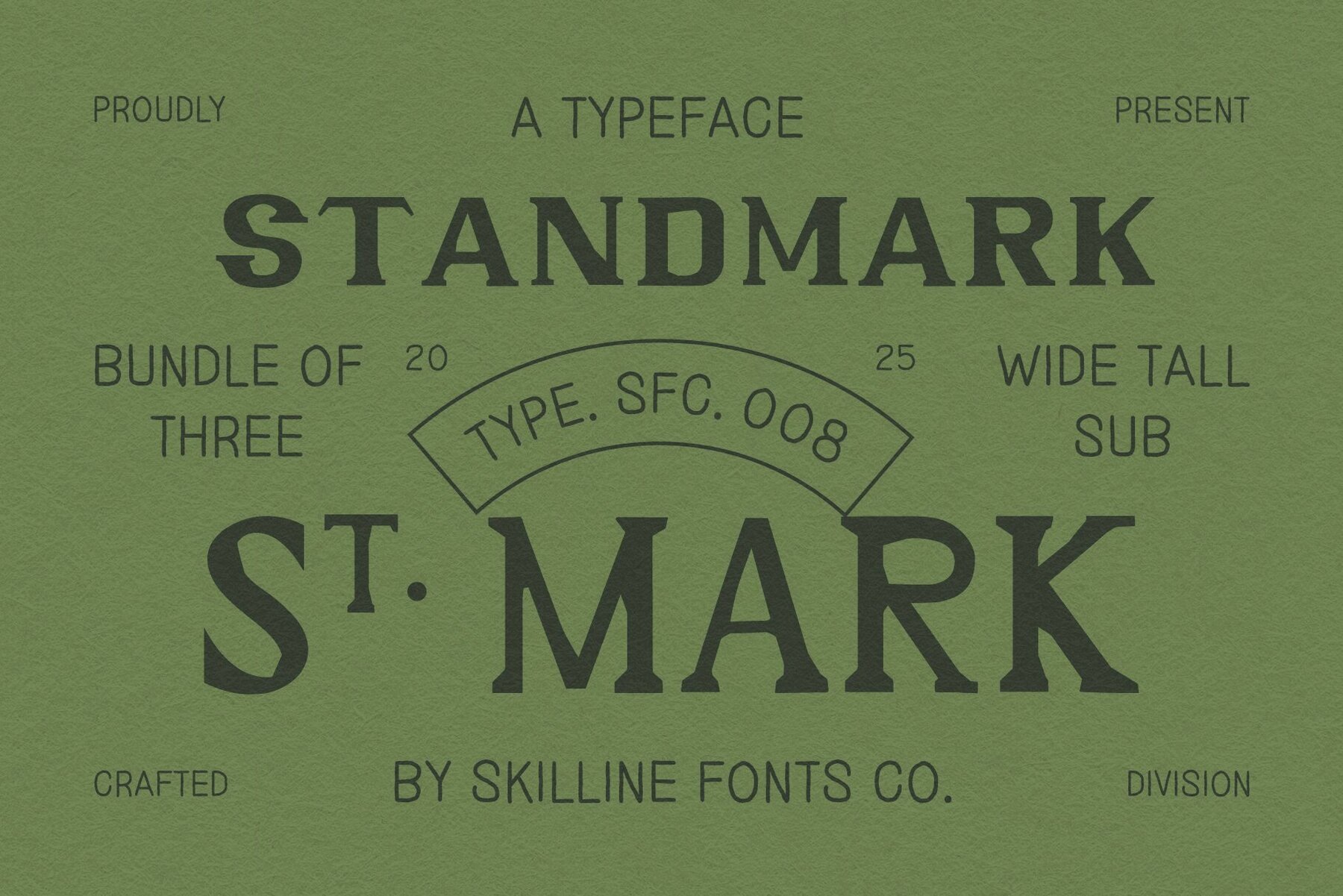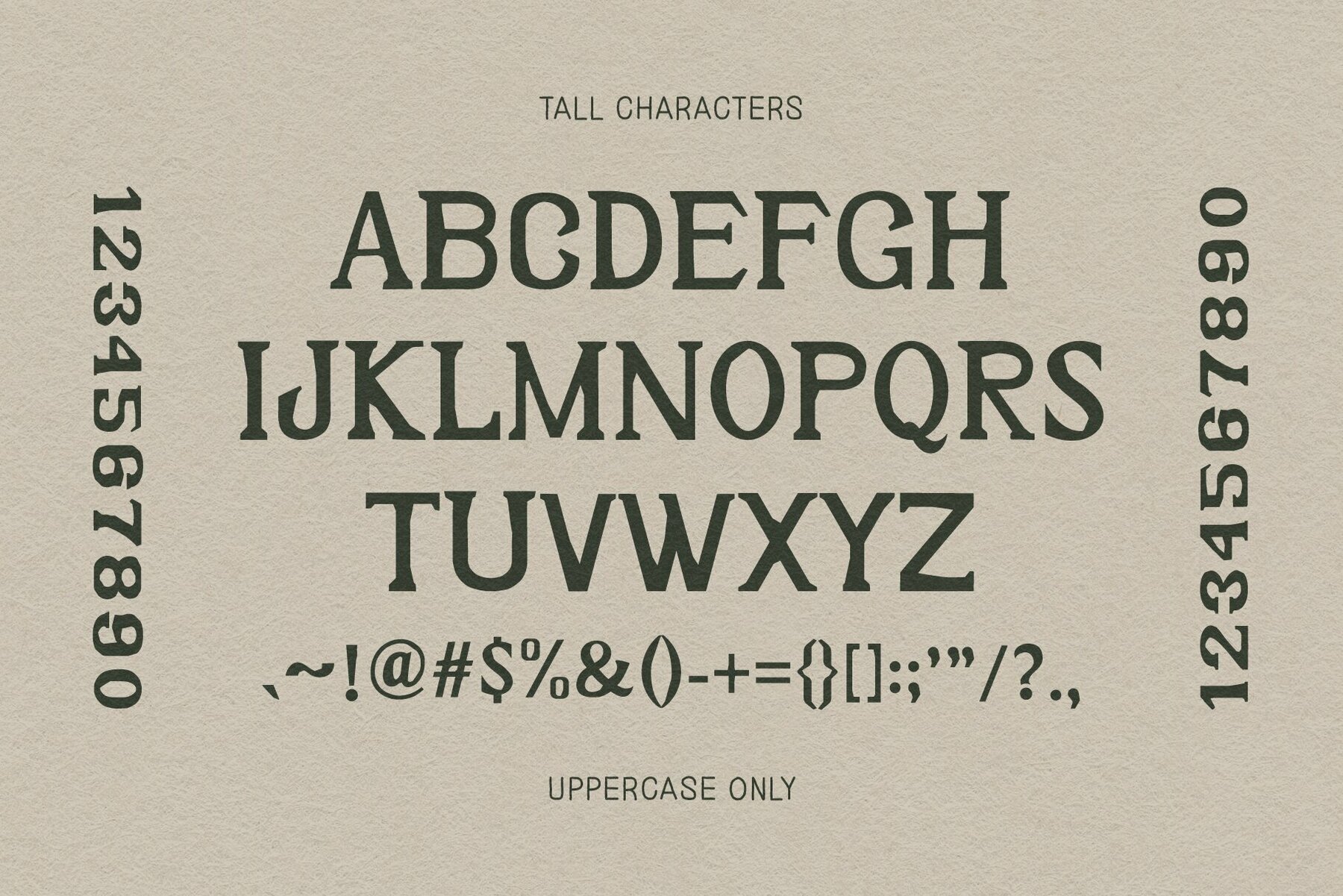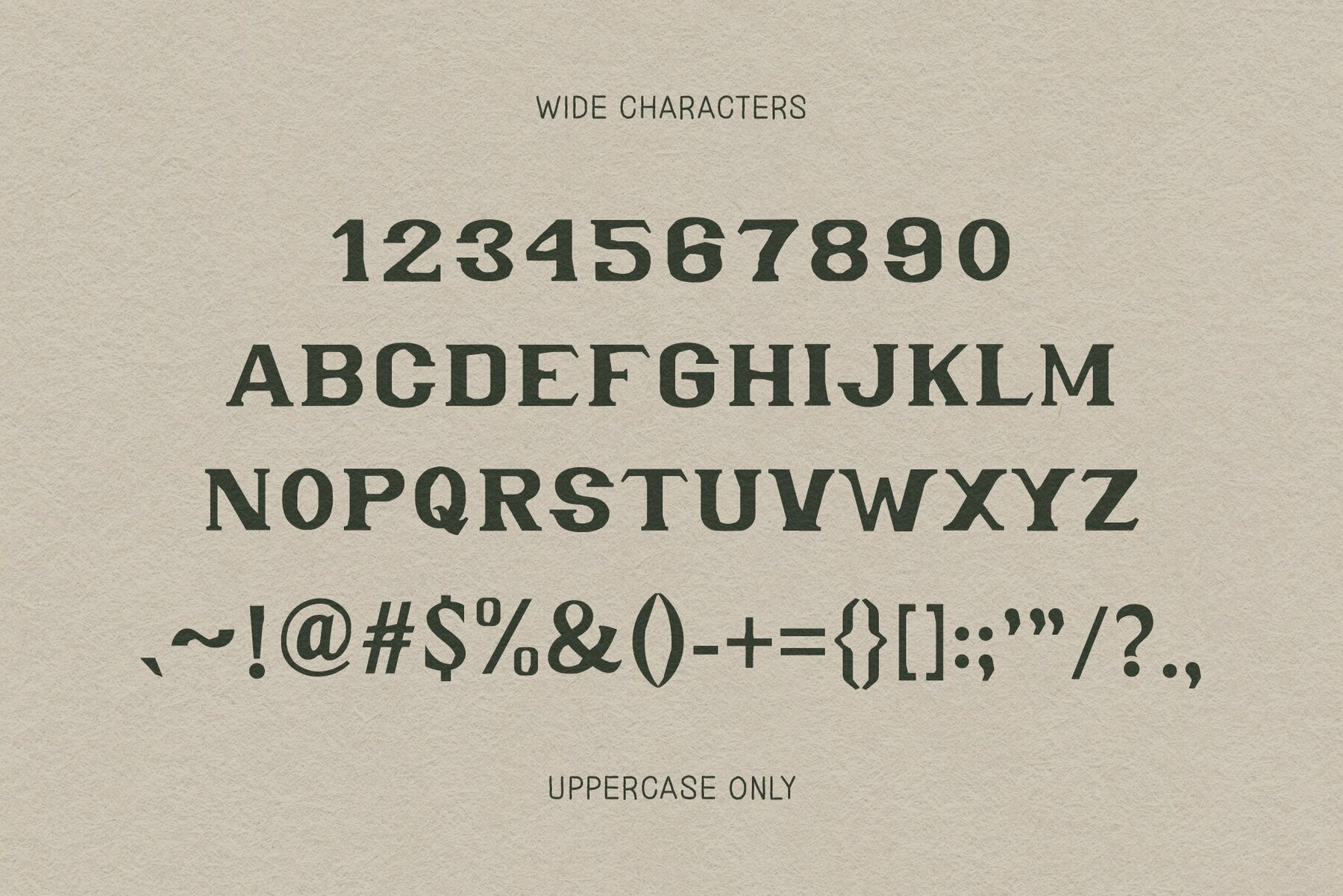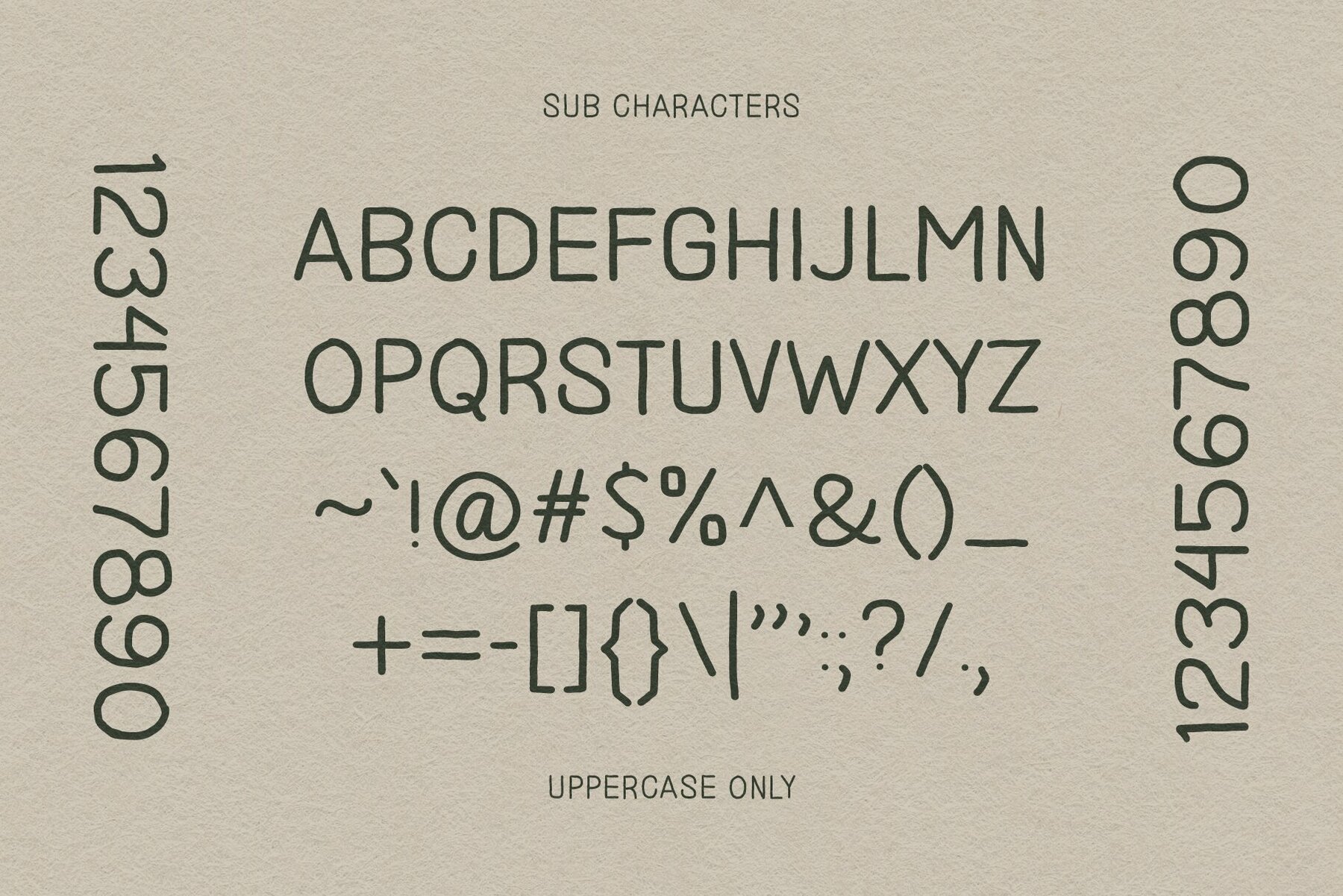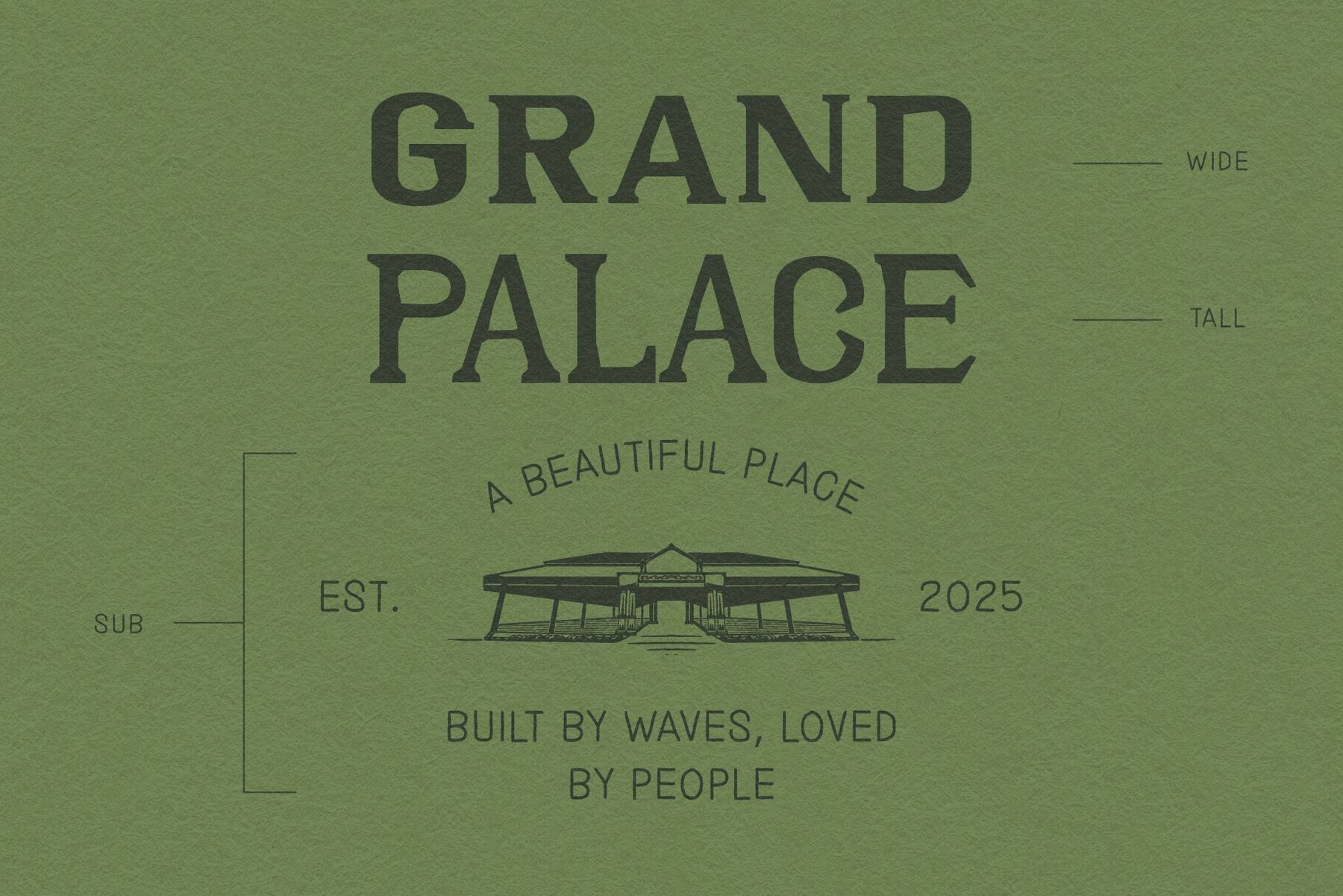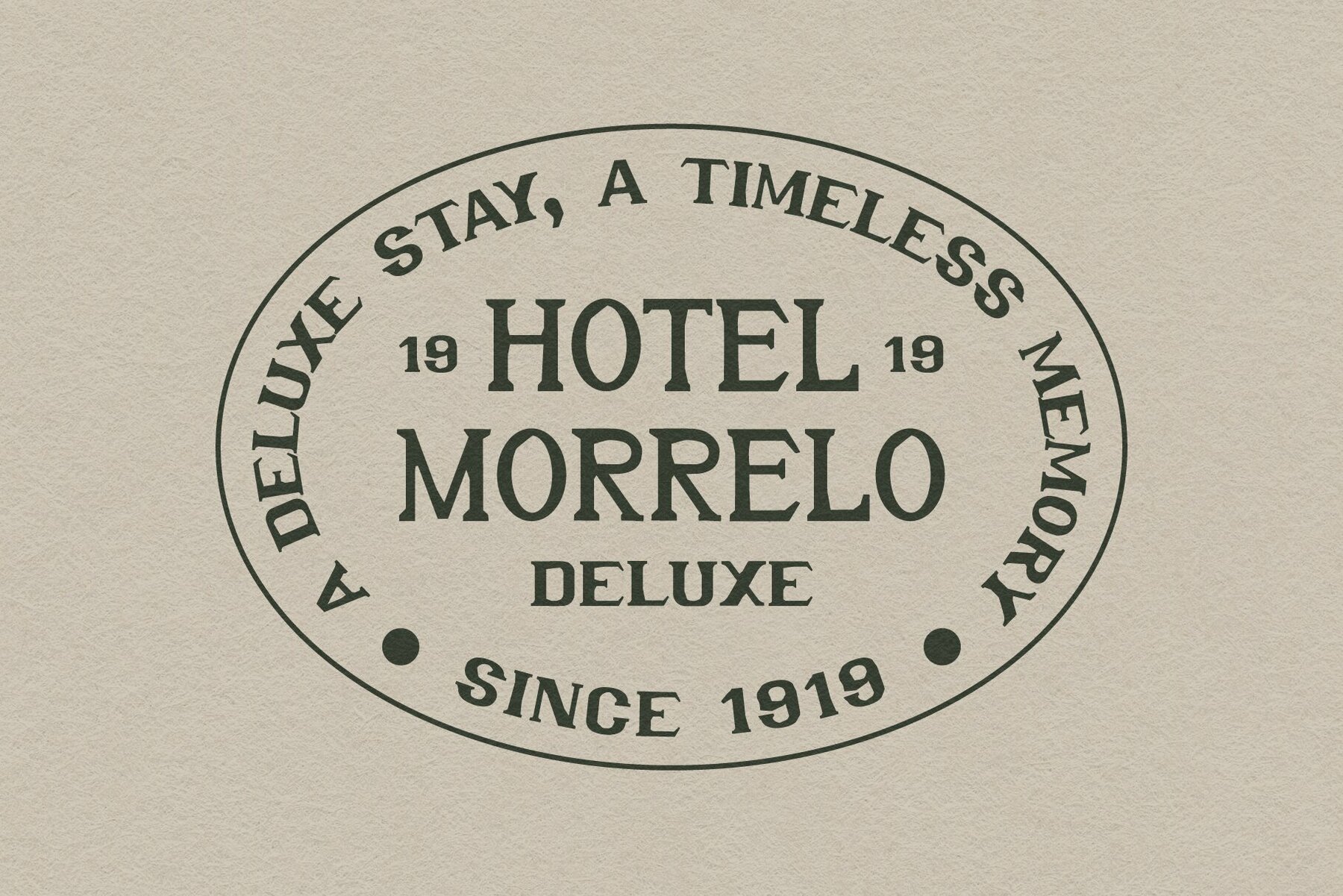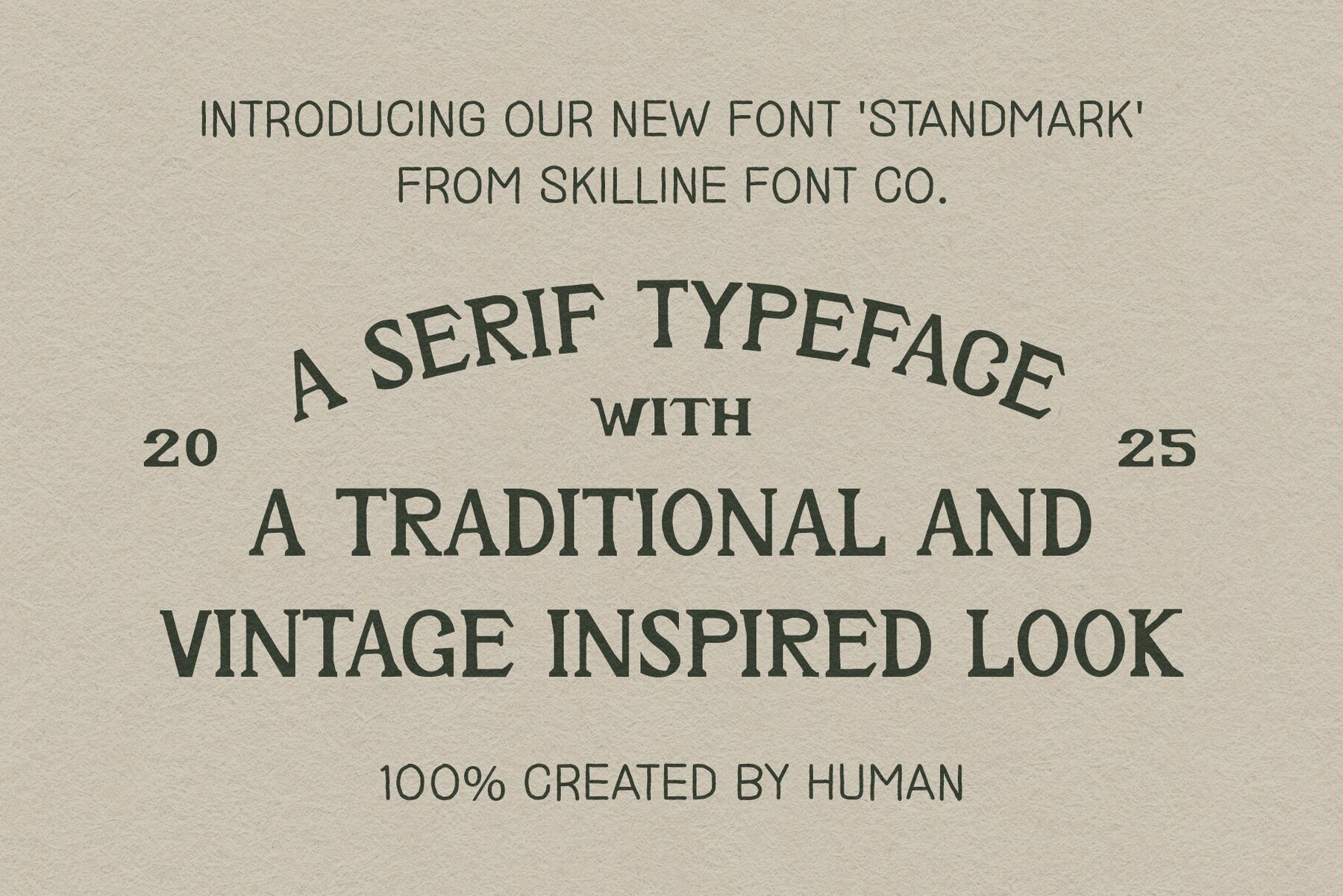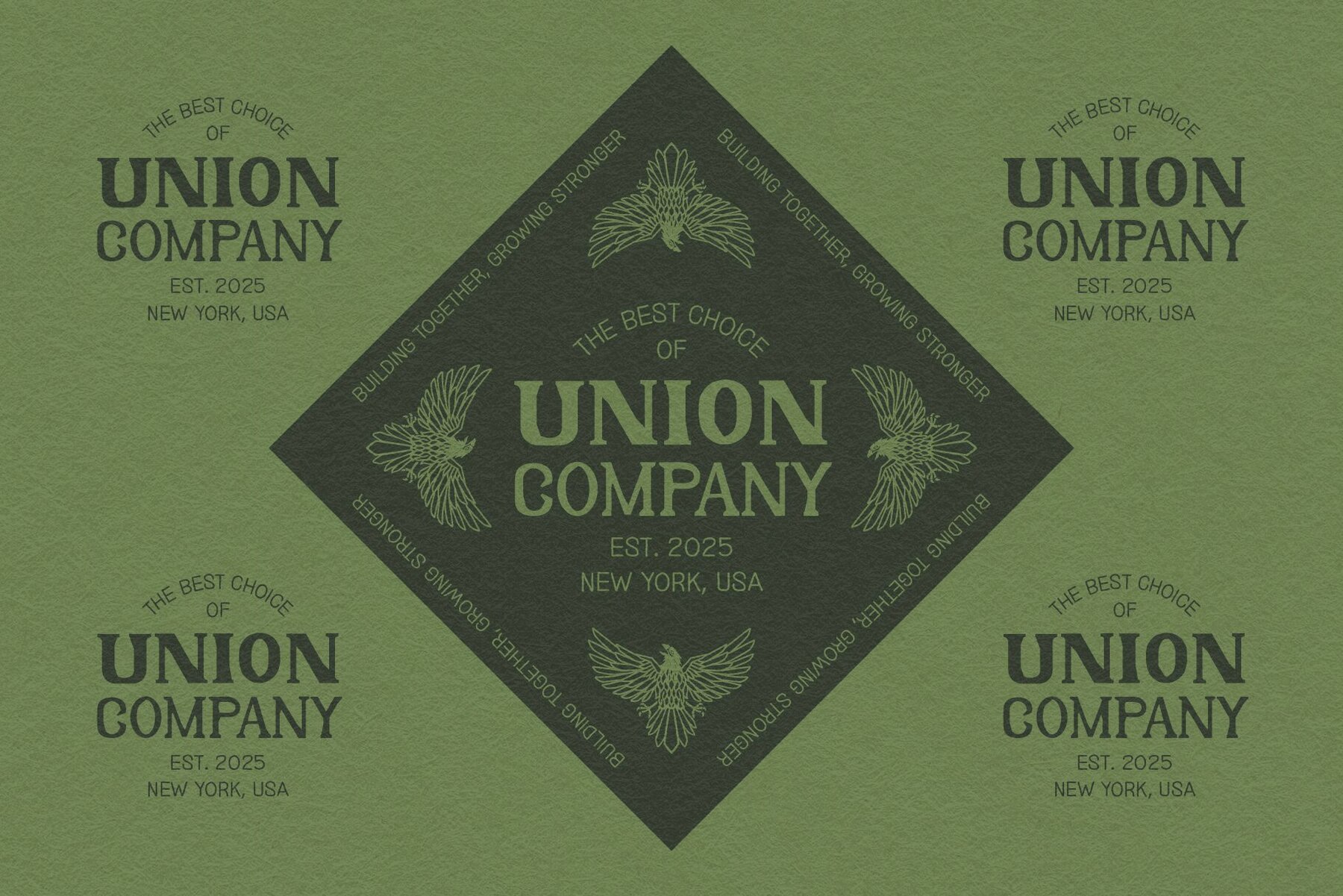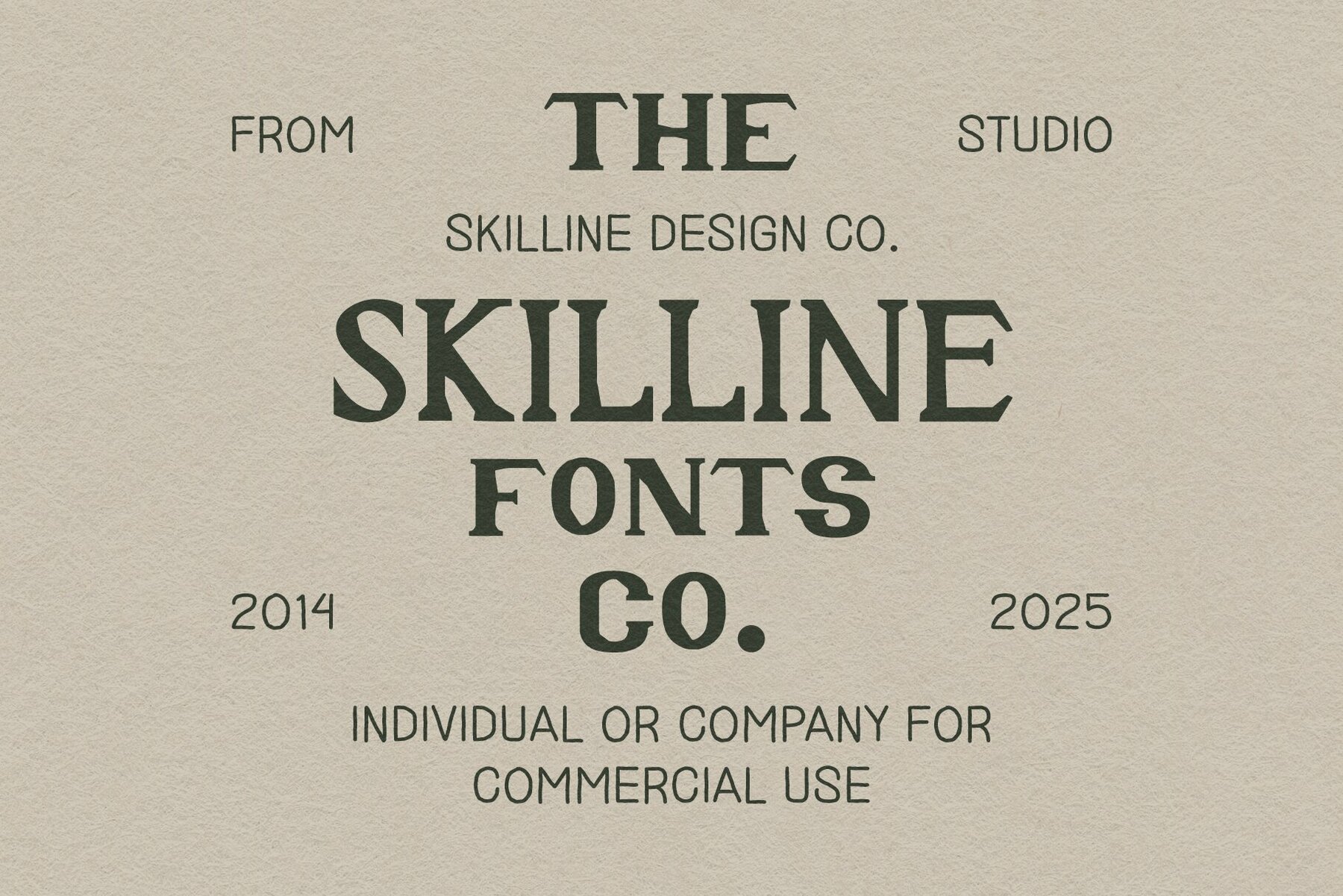
Standmark Font
Standmark captures the essence of traditional signage and old-world typography, combining vintage charm with crisp, modern lines. This serif font trio offers three distinct styles—Tall, Wide, and Mono—making it adaptable for a range of design needs, from authoritative headlines to refined subtext. The typeface’s subtle serifs and carefully balanced proportions reflect the detail of mid-century craftsmanship, while its clean construction assures reliable legibility for contemporary use. Inspired by classic letterpress and sign painting, Standmark brings the character and authenticity of handcrafted lettering to digital design. Each curve and edge showcases thoughtful design, delivering warmth and strength without compromising versatility. This font elevates any project with a sense of heritage, making it a favored choice for creatives who value detail and lasting appeal in their typography.Standmark: A Vintage Serif Font Trio with Classic Craftsmanship